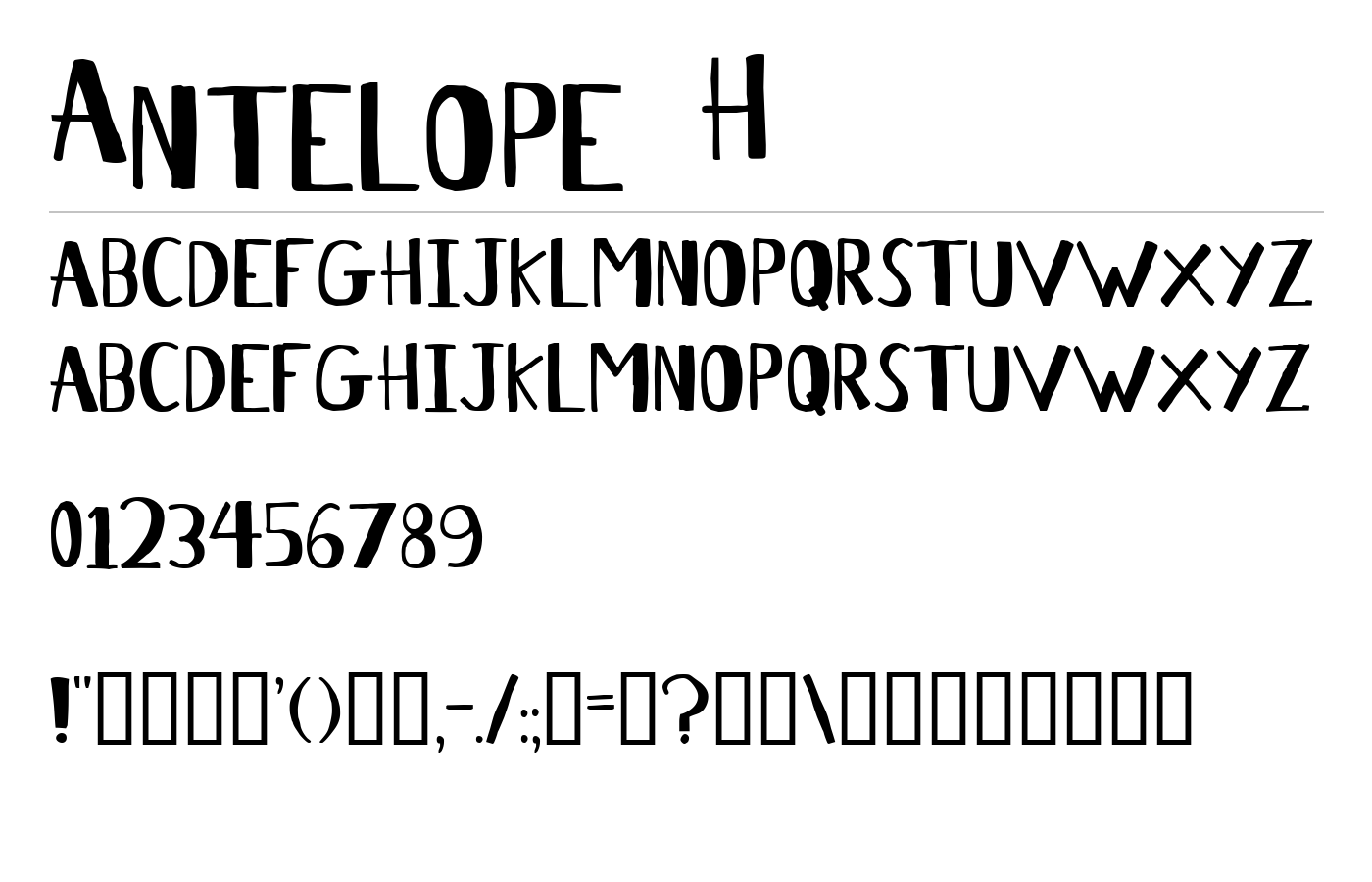
Antelope H is a playful and hand-drawn sans serif font characterized by its irregular, slightly condensed letterforms and medium stroke contrast that give it a lively, casual feel. Its tall x-height and quirky shapes make it ideal for creative projects, children’s products, or any design seeking a friendly, approachable vibe. This font works best for headlines, logos, and packaging where a unique, informal style is desired.
Antelope H Font